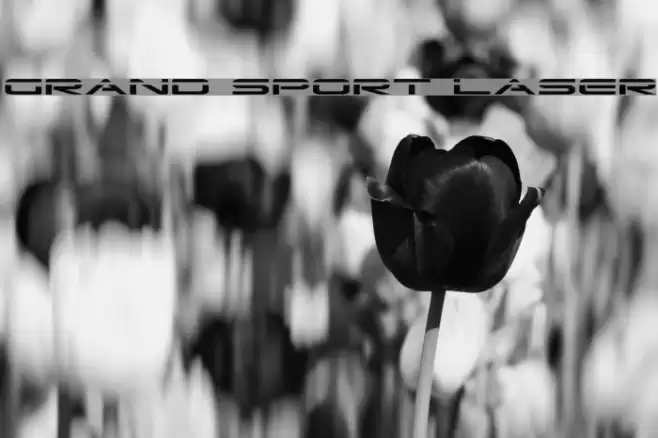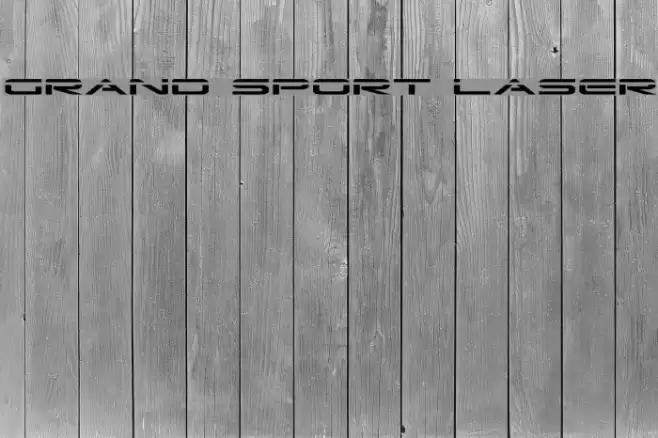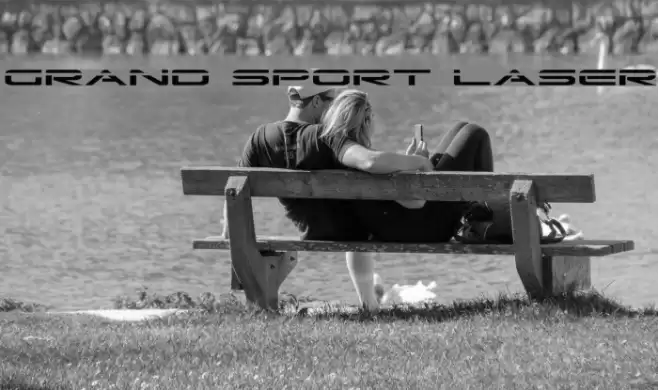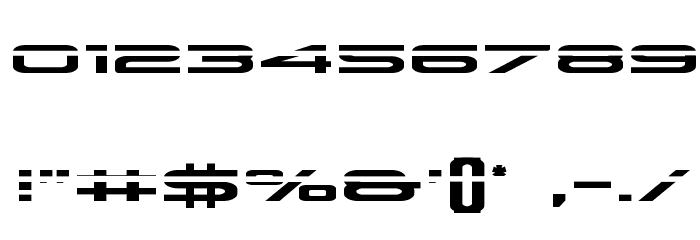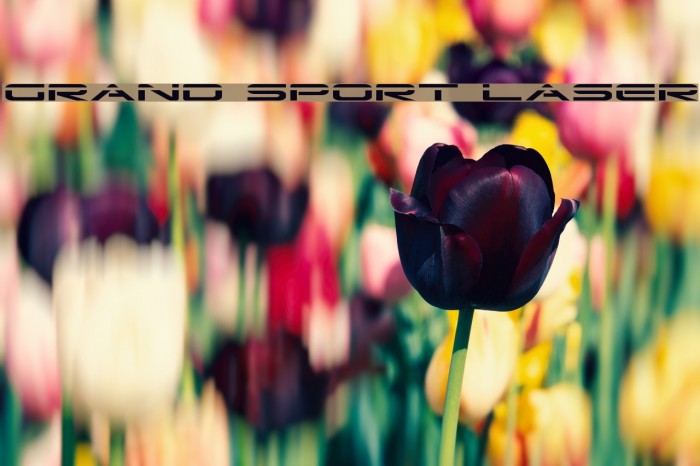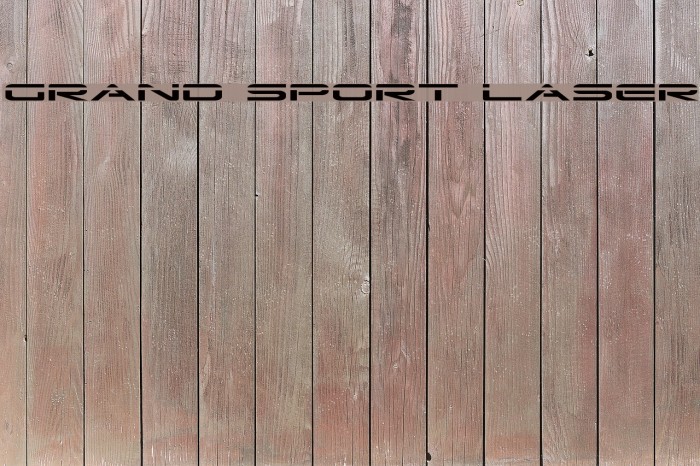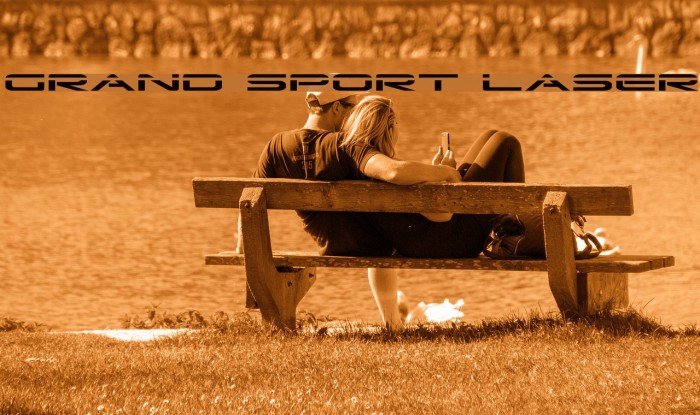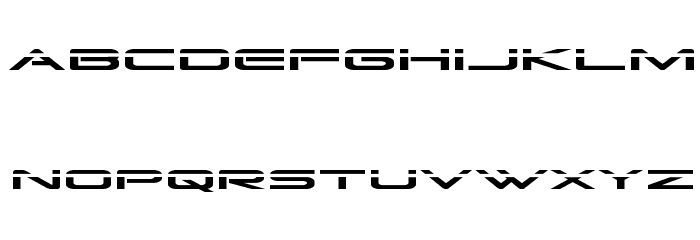
Grand Sport Laser Font
Grand Sport Laser Description
This font features a futuristic and sporty design, characterized by its sleek and angular letterforms. The uppercase letters are bold and dynamic, with a distinct geometric style that incorporates sharp edges and clean lines. The lowercase letters maintain the same aesthetic, providing a cohesive look across all characters. Numbers are designed with the same precision, ensuring readability while maintaining the font's unique style. The special characters are thoughtfully crafted to complement the overall design, making this font suitable for a variety of applications. Its modern and innovative appearance makes it ideal for projects that require a cutting-edge and energetic feel.
A futuristic, sporty font with sleek, angular letterforms and a geometric style from Uncategorized fonts.
- Proposed Projects: Ideal for sports branding, automotive designs, tech-related projects, and futuristic themes.
- Use Case: Headlines, Logos, Branding